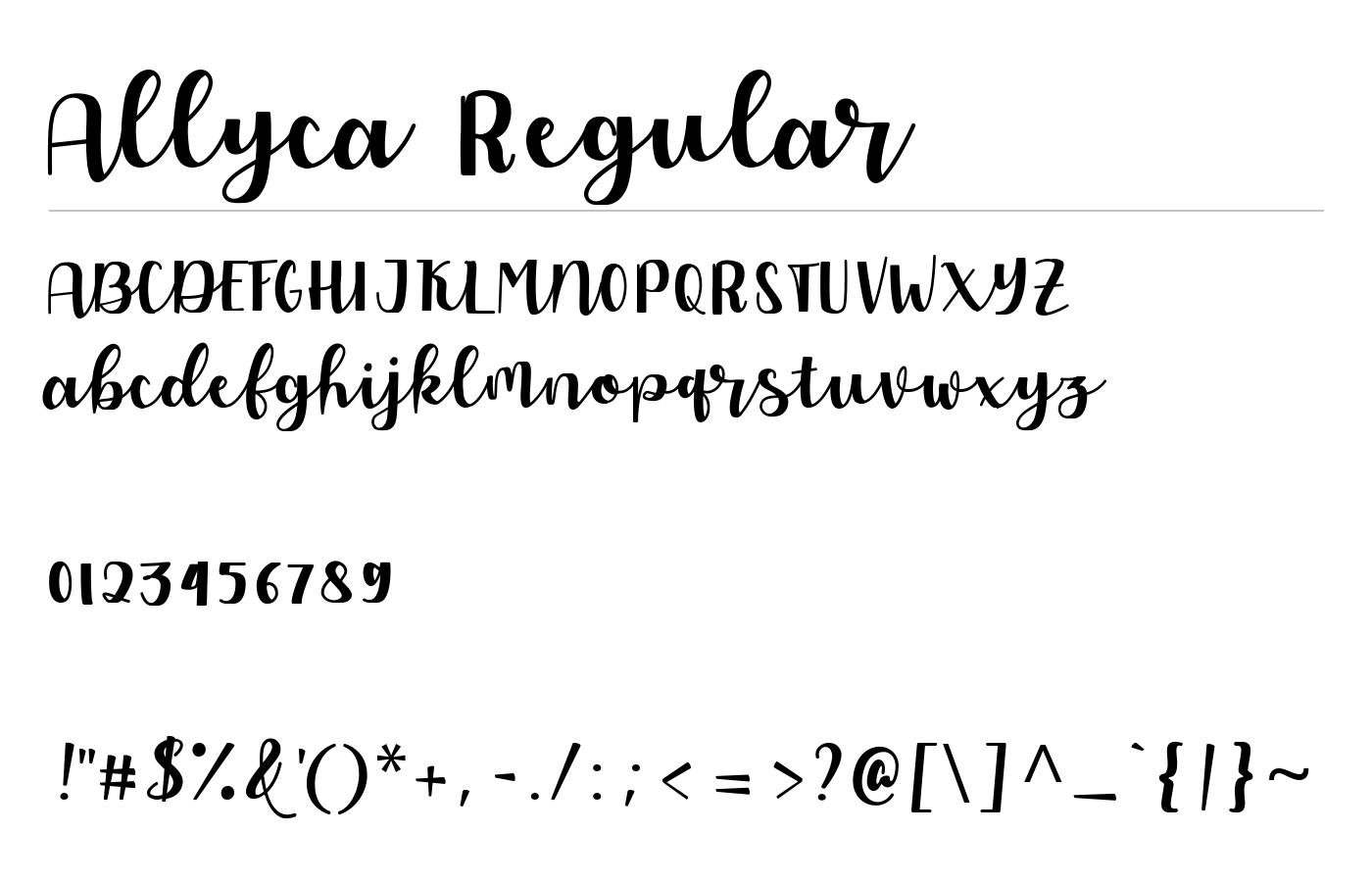
Allyca Regular is a playful and charming script font with a lively, hand-drawn feel. It features smooth, flowing strokes with moderate contrast and unique character shapes that give it personality and warmth. This font works wonderfully for creative branding, invitations, and friendly headlines where a casual yet elegant touch is desired.
Allyca Regular Font
About Allyca Regular Font
| Font family | Allyca Regular Font |